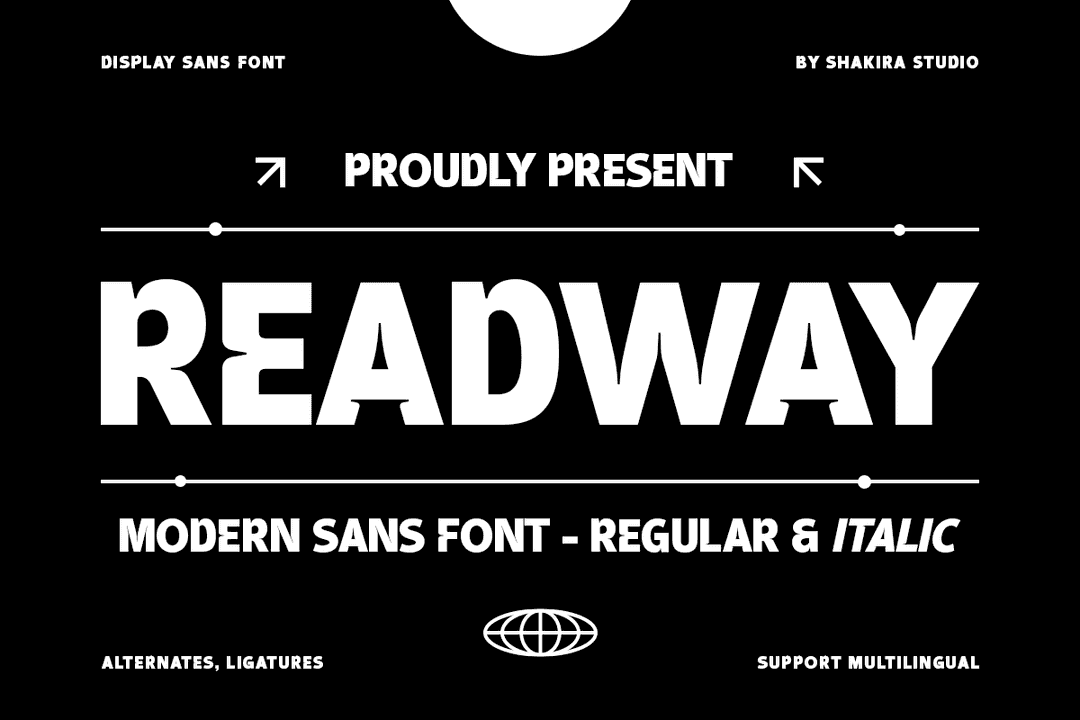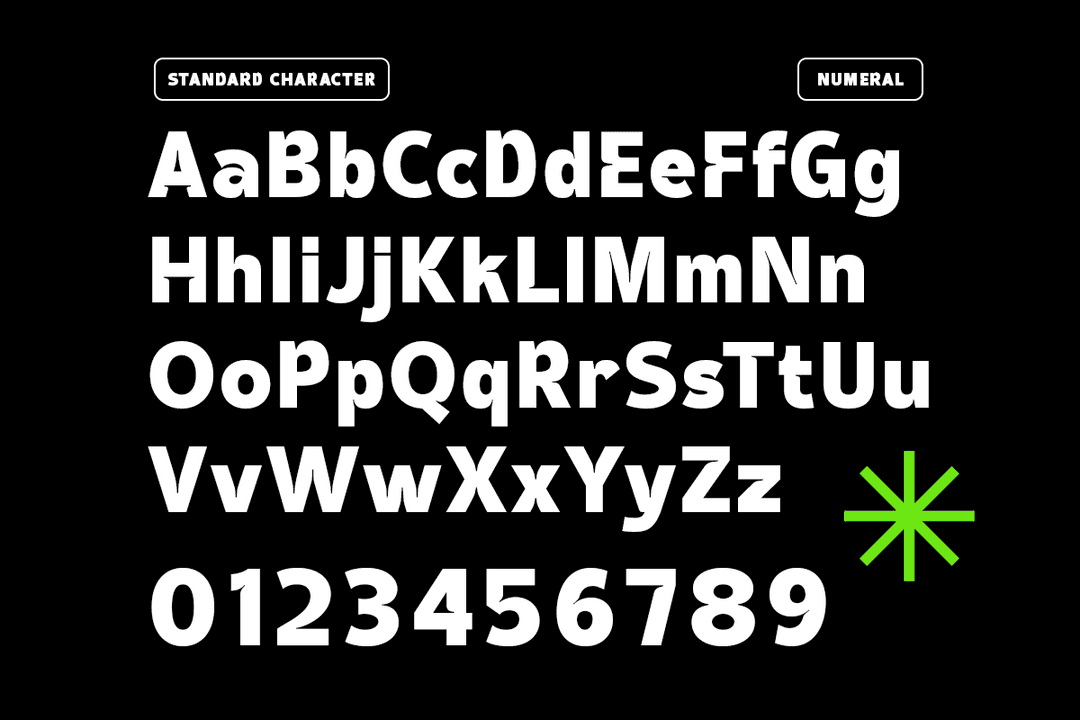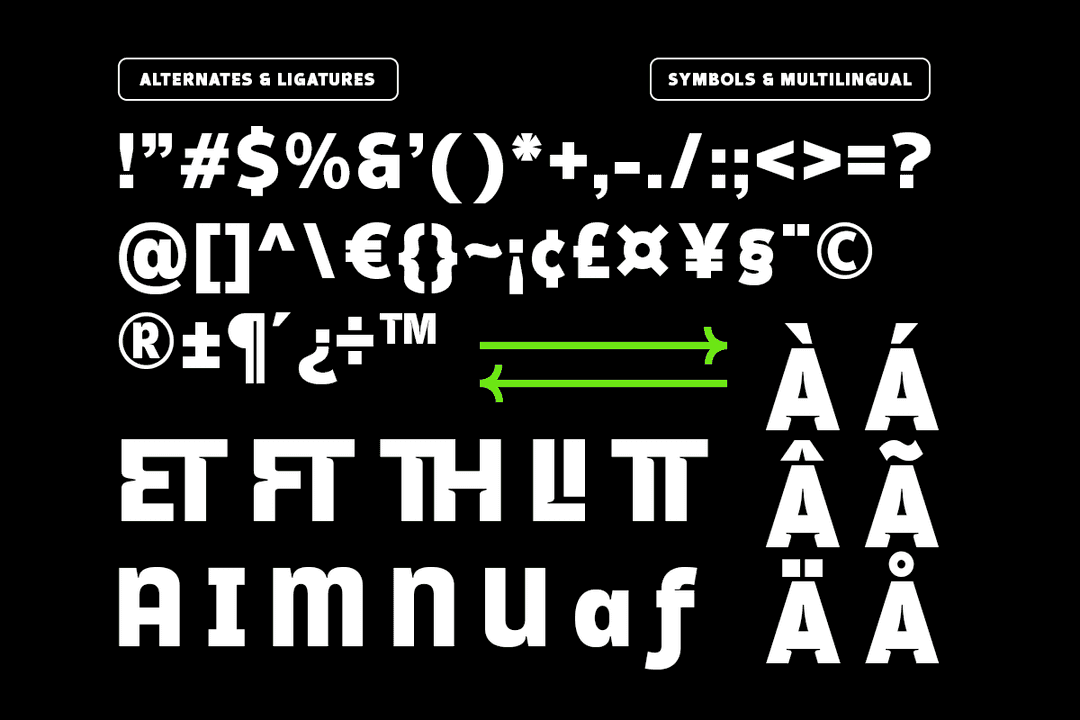
Readway is a contemporary font with bold display sans-serif appearance and some rather individualistic characters. Great for capturing the viewers’ eyes in your designs, Readway is available in two font styles: regular and italic, which makes it ideal for a wide range of projects. For headlines, posters or branding, this font is perfect, it has a very modern look and feel about it.